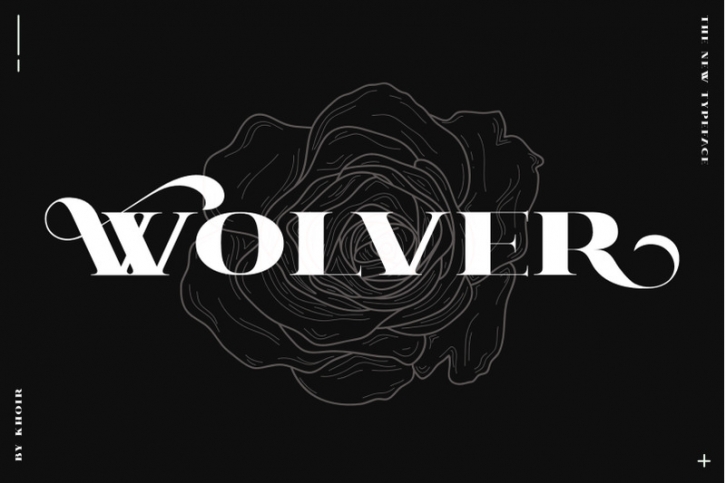
Introducing WOLVER- modern classic
Introducing thin and thick collaboration WOLVER fonts that make it look luxurious and elegant, combined with alternative letters that will make a classic impression, and make it easy to apply and develop for logo design, weddings, wedding cards, business cards, magazine, and many more, So what are you waiting for to enjoy the luxury of WOLVER fonts?